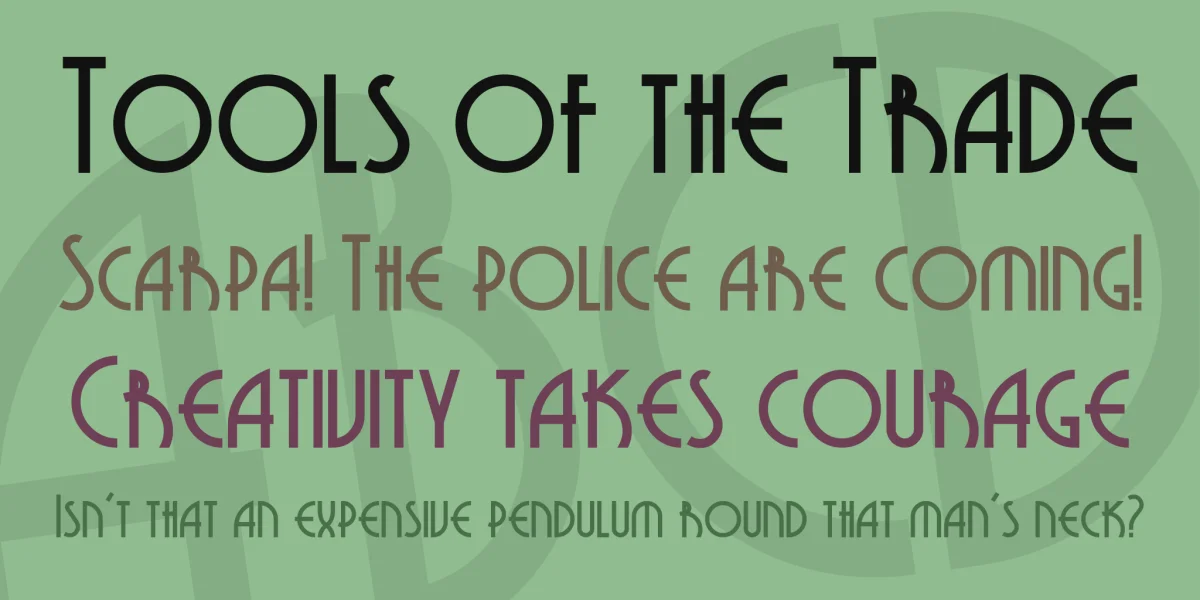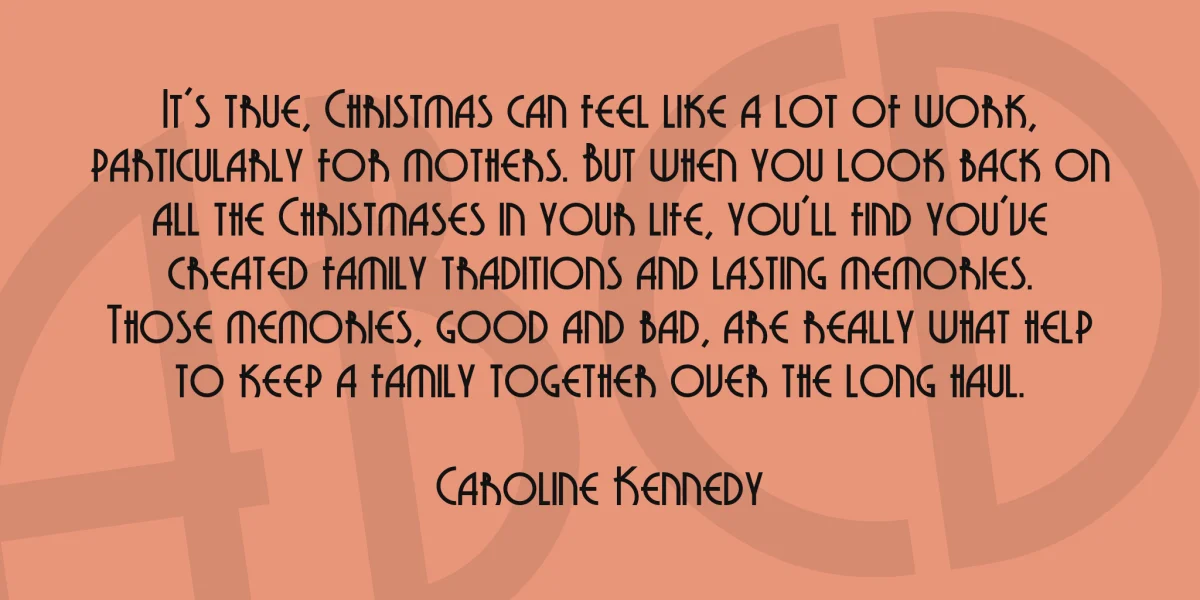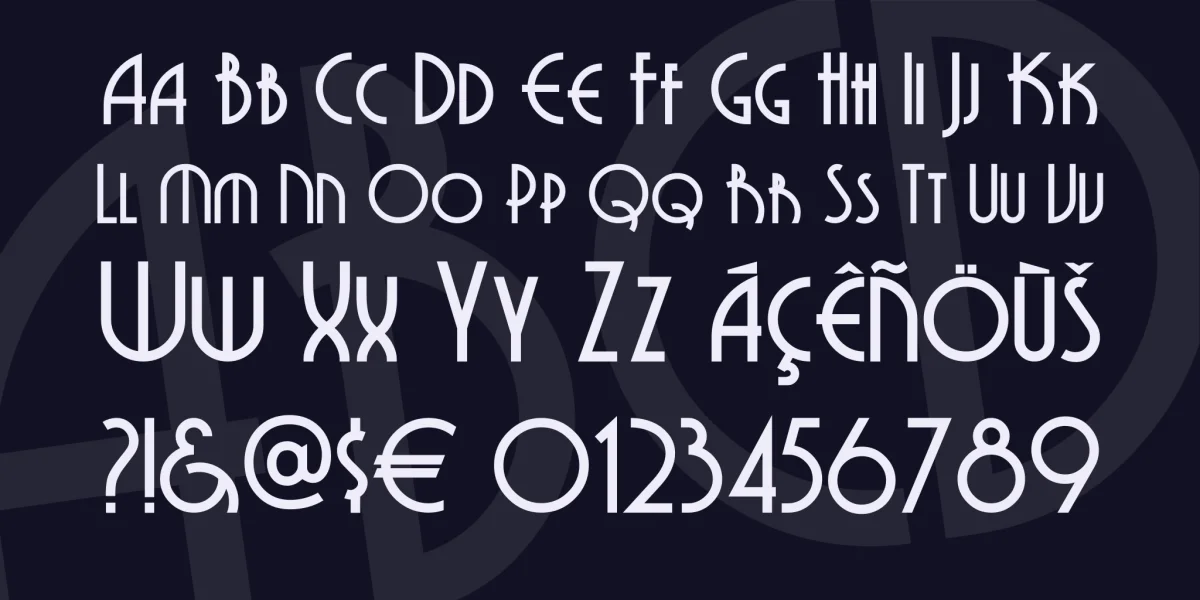
Another offering from Deco typemeister Samuel Welo. This font was originally called Modernistic (also the original name for my Metro Retro font). I don’t know that the name that I’ve chosen — completely arbitrarily — for my version of the font is any better, but it’s no worse, either.